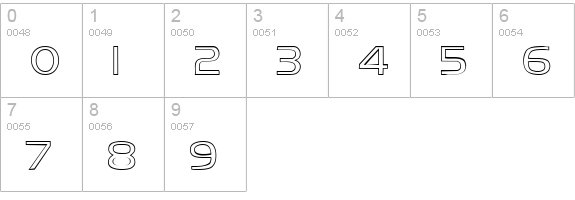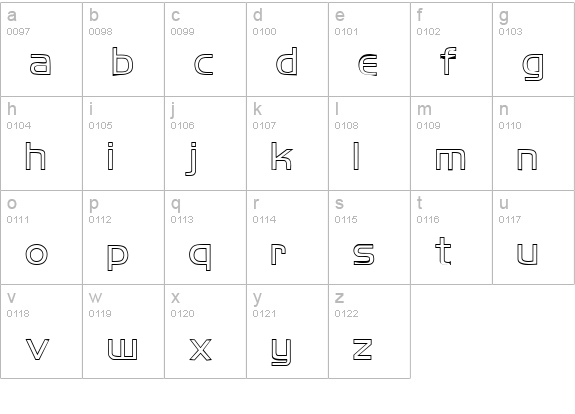
LarissaOpen Font Details
LarissaOpen is a versatile and modern font that exudes elegance and sophistication. With its clean lines and stylish curves, this font is perfect for a wide range of design projects, from branding to editorial design. LarissaOpen is freely available to download at FontsMarket.com, making it accessible to designers and creatives looking to add a touch of class to their work. Whether you're creating a sleek logo, designing a chic website, or crafting eye-catching social media graphics, LarissaOpen is sure to elevate your designs to the next level. Add a touch of timeless beauty to your projects with LarissaOpen font today.